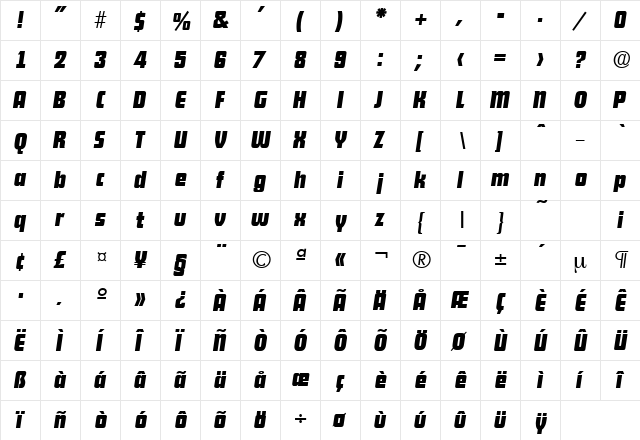
DekoDisplay-Serial BoldItalic Font Preview
Design Context for DekoDisplay-Serial Typeface
DekoDisplay-Serial brings ornamental detail and strong personality to headlines and identities, where visual impact matters more than quiet functionality. The dynamic lean of this cut emphasises speed and emphasis in any layout. The heavy weight commands attention and anchors typographic hierarchies.
Font Pairing: Pair with a clean neutral sans-serif for body copy to let DekoDisplay-Serial's character lead without overwhelming the composition.
Pro Tip: Use DekoDisplay-Serial exclusively at display sizes — it was designed to be seen, not read at length. Let a neutral companion handle body copy.